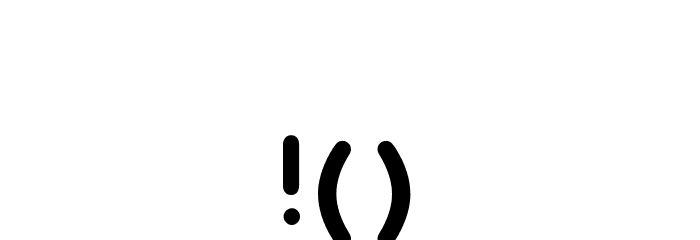
Mothanna Bold Font
This font features a bold and striking design with a modern aesthetic. The characters are crafted with a strong emphasis on geometric shapes, providing a clean and contemporary look. The strokes are uniform, contributing to a balanced and harmonious appearance. The font's boldness makes it highly legible, even at smaller sizes, while its modern style ensures it stands out in any design. The characters are well-spaced, offering a comfortable reading experience. This font is versatile, suitable for a variety of uses, from digital to print media.
A bold, modern font with geometric shapes and uniform strokes.